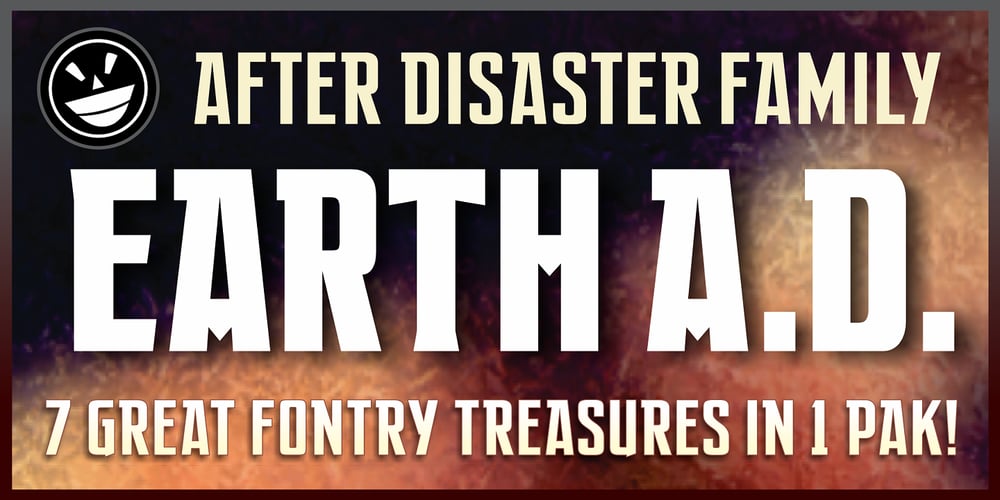
EARTH A.D. Font Family was designed by Michael Gene Adkins and published by The Fontry. EARTH A.D. contains 9 styles and family package options. It’s you and grandfather hiding out against a world gone mad! If you were reading comics in the seventies and eighties, you’ve seen these characters before, their slab serifs dispersed at seemingly random letter points, perplexing and amazing and entertaining you. It’s the birth bag of something very old and simple and uniquely functional. Here at last is a headline font collection unlike any other, the devil in the sand, a thing unattempted. Fully armed and massively kerned, there’s an influence afoot. Can you handle the dawning surprises of a new age? The Earth A.D. (After Disaster) family was inspired by the narrow yet heavy and open gothics penned by comic letterers primarily during the late 60s and early 70s. After Disaster, the original font that inspired this collection, is a great “reader” that stands proud and legible over its later incarnations. But comic letterers back then weren’t prone or known to show comic readers much lowercase lettering. So inspiration was looked for and found not in the uppercase letters as others might have been tempted to do, but in the gothic styles of 30s and 40s signwriters. Even the numbers come from a legitimate source, lifted right off a vintage truck speedometer straight out of the 50s. So everything you see here is authentic. You just have to know where to look. From the original After Disaster font, six additional faces have spun themselves into existence over the years. This comprehensive package will put a total of seven fonts on your hard-drive, a well-rounded family that has proven itself a hit in signshops around the world since 1999. So it is with misty-eyed enthusiasm that it finally arrives here. And yes, to the fanboys who know what the not-so-hidden innuendos are all about: you’re going to be very happy with this bunker full of faces.